Customize Fonts on Mobile Phones
This is a sure sign that type awareness is now deep in our culture: Monotype Imaging Holdings Inc. and Vodafone UK are introducing a new way to personalize the mobile user interface on select mobile handsets. With Monotype Imaging’s new FlipFont™ solution accessible from Vodafone live!, Vodafone becomes the first operator in Europe to offer downloadable, mobile-optimized fonts to replace the factory-installed, default font.
“FlipFont has the potential to springboard fonts into the forefront of mobile personalization,” said John Seguin, executive vice president of Monotype Imaging. “As mobile phones become more of an indispensable part of our lives, it’s natural for us to want to reflect our personality in these devices, and font choice provides an attractive avenue to do this. Together with Vodafone UK, we’re introducing a new level of creative freedom. FlipFont is a significant entry for both companies to empower consumers to personalize their own handsets with fonts.”
The FlipFont solution debuts with a selection of 10 scalable fonts downloadable to the Nokia® N73™, N95™ and N95 8GB handsets. Typeface designs range from the ITC Stylus™ font, with its hand-lettered feel, to the attention-grabbing Musclehead™ design, starting at £1.99 for a single font. The FlipFont solution also includes a utility that allows customers to ‘flip’ to use a different font, or access additional fonts that can be previewed, licensed and downloaded. Additional fonts are expected to become available on an ongoing basis.
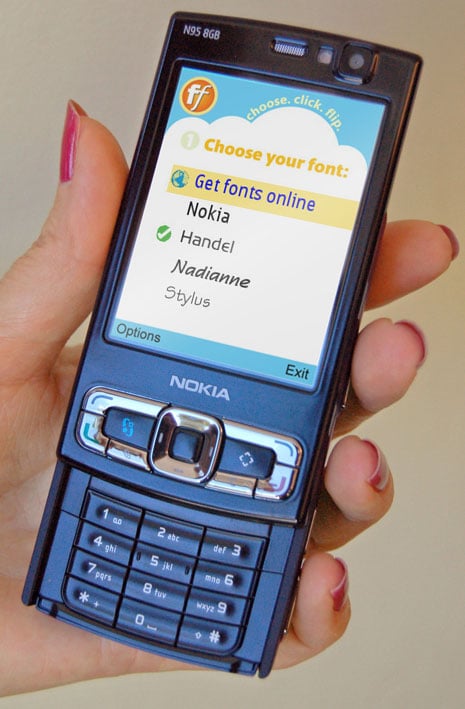
“Ever since mobile became mass market, consumers have enjoyed personalizing their phones,” said Mike Eaton, head of mobile content at Vodafone UK. “From clip-on phone covers in the early days to ringtones and wallpapers more recently, customers have always appreciated innovation to have a truly unique mobile experience, and FlipFont brings just that.”
Julie Strawson, director of marketing Europe at Monotype Imaging Ltd. said, “Users have tried to change their phone font and have ‘broken’ their phone in the process, so we’ve collaborated with Vodafone UK to ensure FlipFont is safe, fun and easy to use. By choosing a font to suit their needs, users can improve their mobile experience and make their phone more usable. We’ve worked closely with Vodafone UK to optimize FlipFont and together be the first to offer this solution in Europe. With solid growth projected for mobile data services, we believe fonts can play an integral role to help OEMs and operators such as Vodafone UK enable a greater level of personalization. Our goal is to extend coverage to a wider range of operating systems and phones worldwide.”
The initially supported phones are based on Symbian OS™ and the Nokia S60® platform which support Monotype Imaging’s iType® scalable font engine. “The openness of Symbian OS combined with the flexibility of iType have been instrumental in turning the ingenious concept of FlipFont into reality,” said Mike Whittingham, vice president of ecosystem development at Symbian. “Monotype Imaging and Vodafone exemplify what can be done to leverage Symbian OS to further differentiate products and create new revenue streams.”
As part of the inaugural FlipFont solution, Monotype Imaging’s iType technology enables the downloaded font to be linked with the default font, providing users with the ability to access non-Latin characters, such as Greek or Cyrillic, which are not contained in the downloaded font. While sufficient in most cases, as each FlipFont typeface supports Latin-based European languages, this feature preserves the ability to use characters from the wider character set available from the default font.